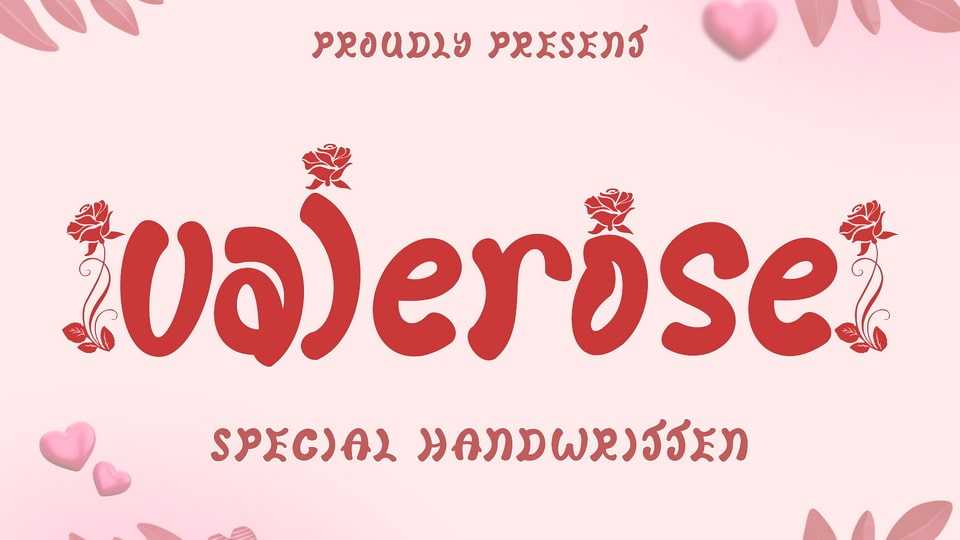
Download Valerose font, a very unique and elegant handwritten display font. This font is decorated with roses in alternate letters, leaving you speechless with the results.